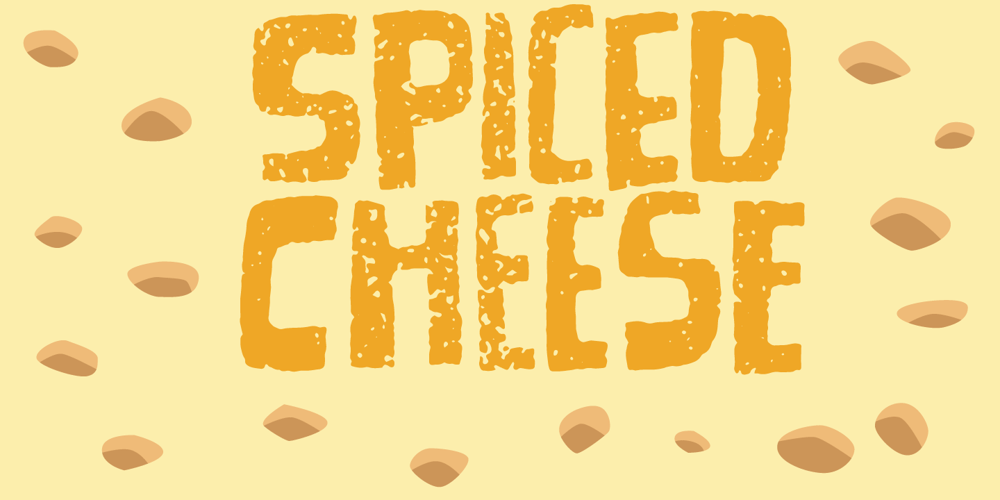
Spiced Cheese
Spiced Cheese font
Spiced Cheese Font Family was designed by Jakob Fischer and published by PizzaDude.dk. Spiced Cheese contains 1 styles and family package options. Just like spiced cheese, this font has got a taste that makes the heavens sing! Even though the font is grafitti and comic inspired, the letters suits mostly everything with it’s rugged and unpredictable look. Comes with multilingual support along with 5 contextual alternates that cycles AS you type!